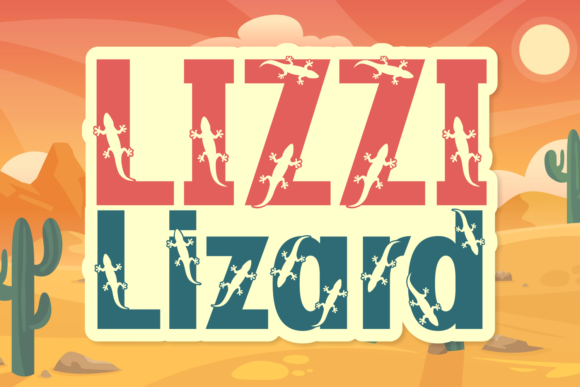
Lizzi Lizard Font: The Ultimate Choice for Fun and Quirky Designs
Are you looking for a font that can add a touch of playfulness and whimsy to your designs? Look no further than the Lizzi Lizard font. This chic, quirky, and original display font is perfect for various design ideas that require fun and jolly vibes. In this article, we’ll take a closer look at the Lizzi Lizard font, its features, and how you can use it to elevate your designs.
What is Lizzi Lizard Font?
Lizzi Lizard is a display font that features a unique and quirky design. The font is inspired by the playful and carefree nature of lizards, making it perfect for designs that require a fun and jolly vibe. The font is designed to be highly legible, making it easy to read and understand, even at large sizes.
Key Features of Lizzi Lizard Font
- Unique and Quirky Design: The Lizzi Lizard font features a one-of-a-kind design that is sure to grab attention.
- Highly Legible: The font is designed to be easy to read and understand, even at large sizes.
- Fun and Jolly Vibes: The font is perfect for designs that require a playful and carefree vibe.
- Versatile: The font can be used for a wide range of design projects, from posters and flyers to logos and branding.
How to Use Lizzi Lizard Font in Your Designs
The Lizzi Lizard font can be used in a variety of design projects, including:
1. Posters and Flyers
The Lizzi Lizard font is perfect for creating eye-catching posters and flyers. Use it to add a touch of playfulness and whimsy to your designs.
2. Logos and Branding
The Lizzi Lizard font can be used to create unique and memorable logos and branding. Use it to add a touch of personality to your brand.
3. Social Media Graphics
The Lizzi Lizard font is perfect for creating social media graphics that stand out. Use it to add a touch of fun and playfulness to your social media posts.
Tips for Using Lizzi Lizard Font
Here are some tips for using the Lizzi Lizard font in your designs:
1. Use it in Large Sizes
The Lizzi Lizard font is designed to be highly legible, even at large sizes. Use it in large sizes to make a bold statement.
2. Experiment with Colors
The Lizzi Lizard font can be used with a wide range of colors. Experiment with different colors to find the perfect combination for your design.
3. Pair it with Other Fonts
The Lizzi Lizard font can be paired with other fonts to create a unique and interesting design. Experiment with different font combinations to find the perfect pairing.
The Lizzi Lizard font is a chic, quirky, and original display font that is perfect for designs that require fun and jolly vibes. With its unique and quirky design, highly legible letters, and versatile nature, it’s the perfect choice for a wide range of design projects. By following the tips outlined in this article, you can use the Lizzi Lizard font to elevate your designs and make a bold statement.